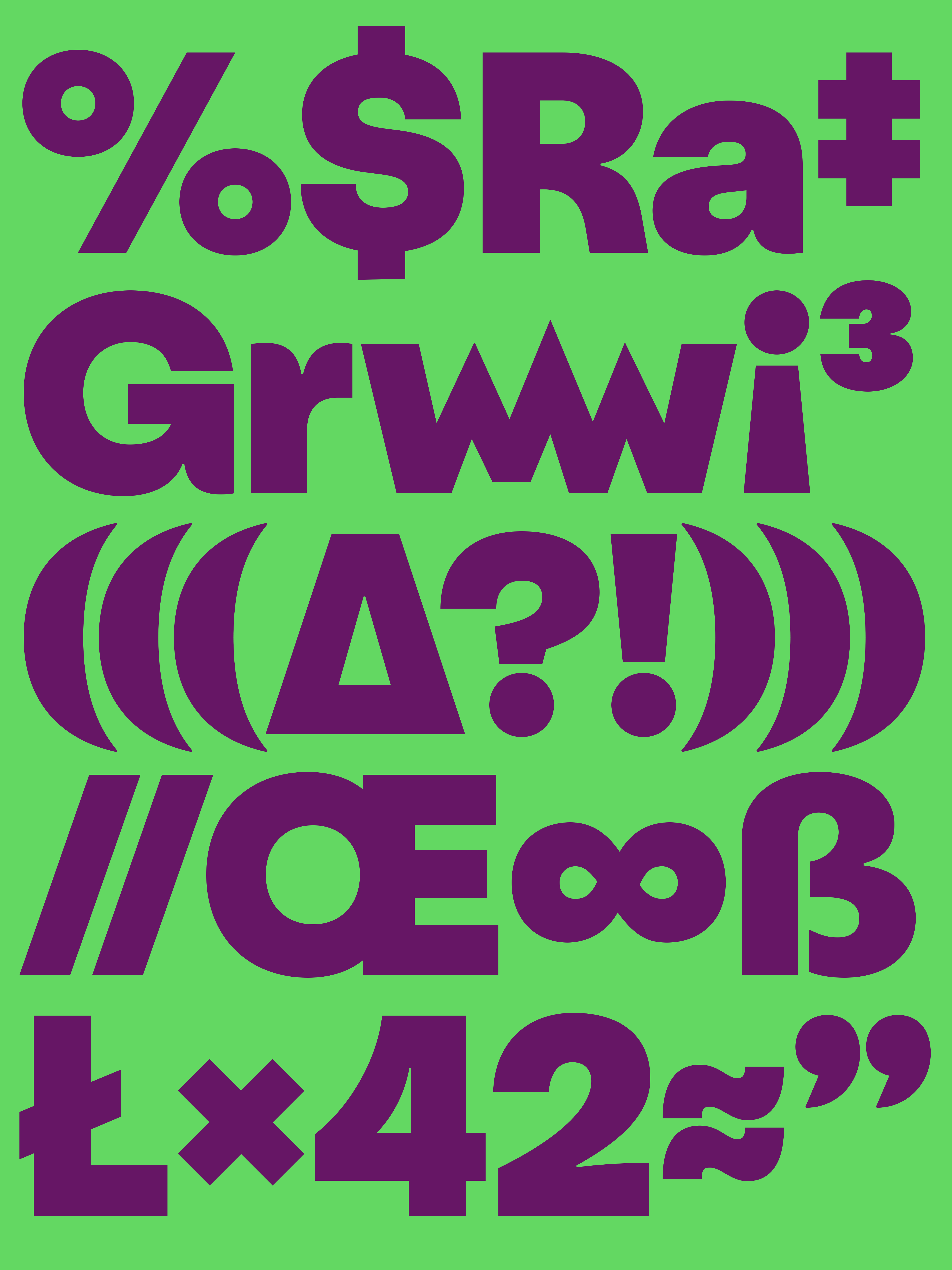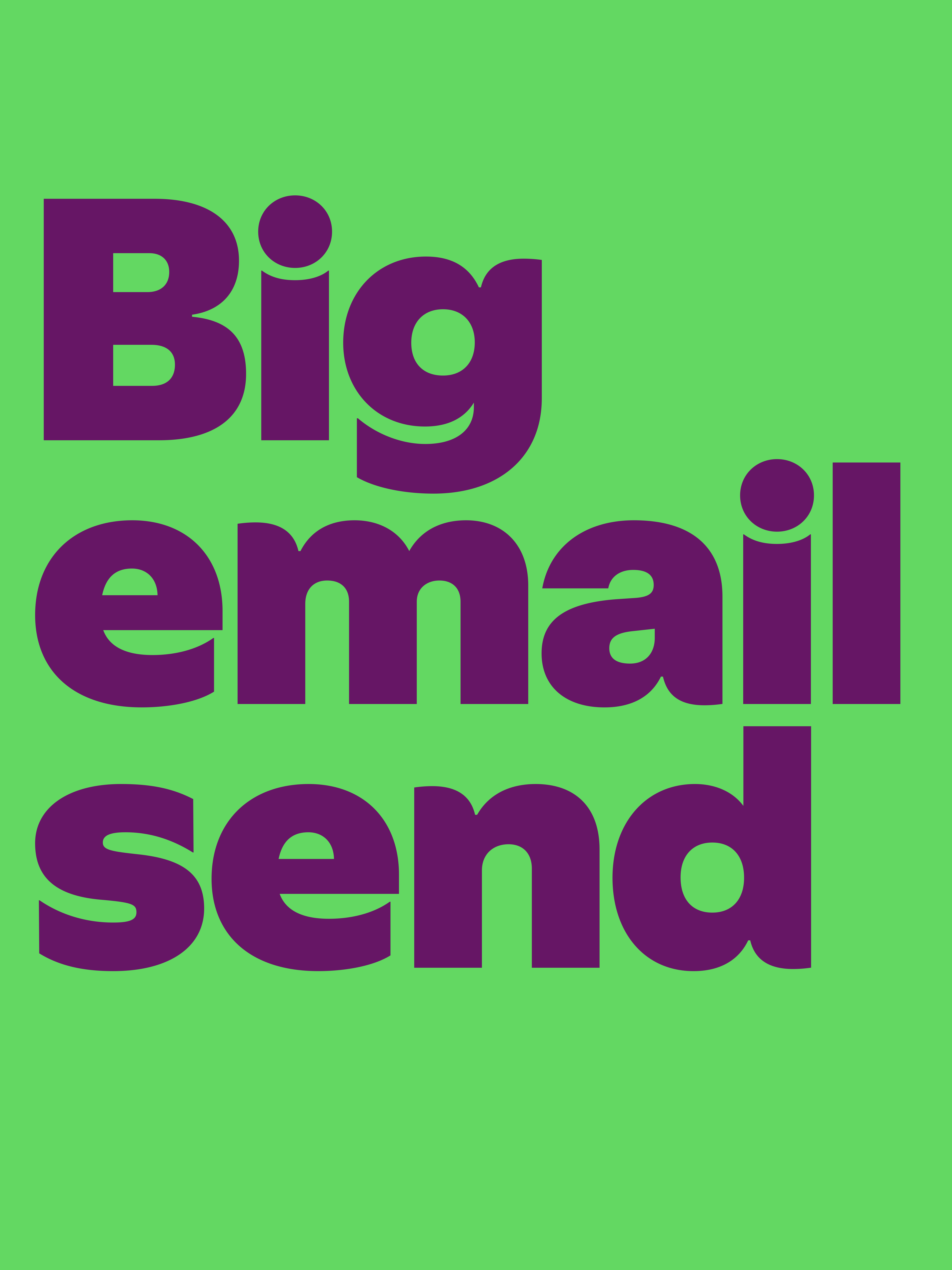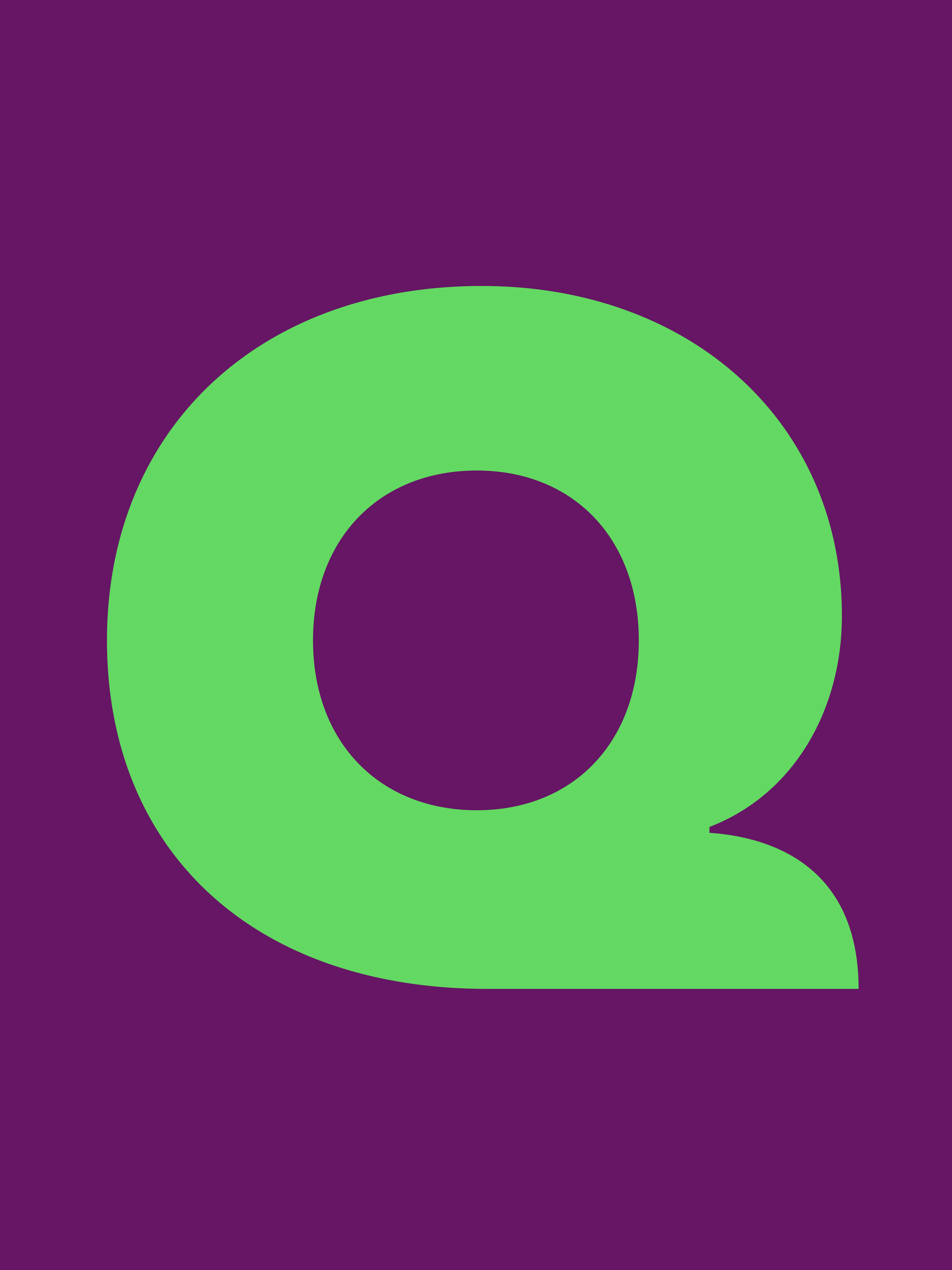
Monstie Sans is a custom headline typeface developed for Inbox Monster in collaboration with Verve Agency. Designed to capture the playful spirit of the Monstie mascot, the typeface transforms the brand's character into a distinctive typographic voice that feels expressive without sacrificing clarity. Organic details, most notably the playful spurs, inspired by the mascot's silhouette are paired with a clean geometric foundation, creating a balance between personality and precision. Tight spacing allows the typeface to perform at large display sizes, producing bold, attention-grabbing headlines that amplify every message. As the centerpiece of the brand's visual language, Monstie Sans brings warmth, memorability, and a strong sense of character across digital campaigns and marketing communications.